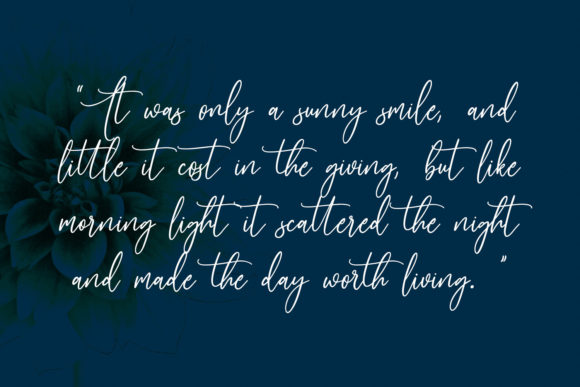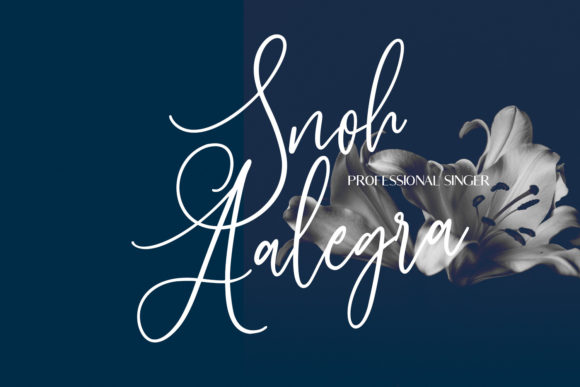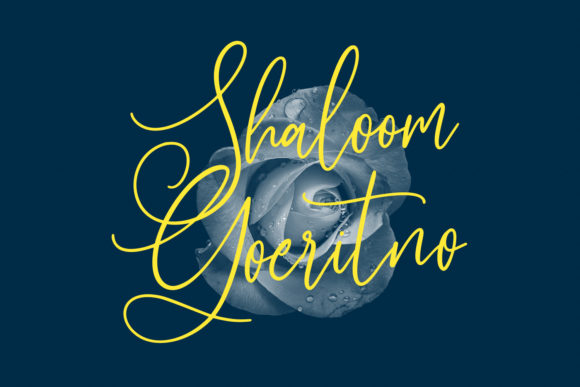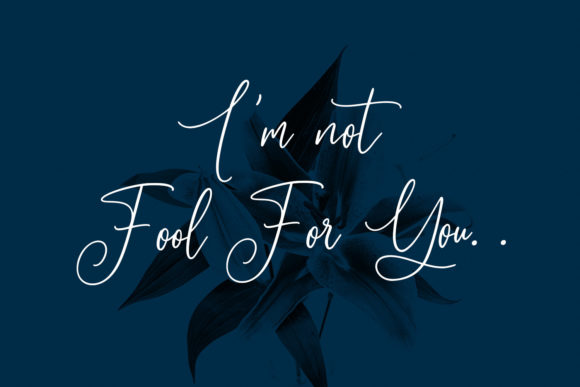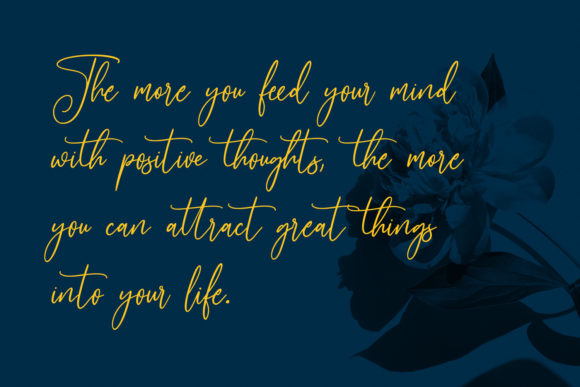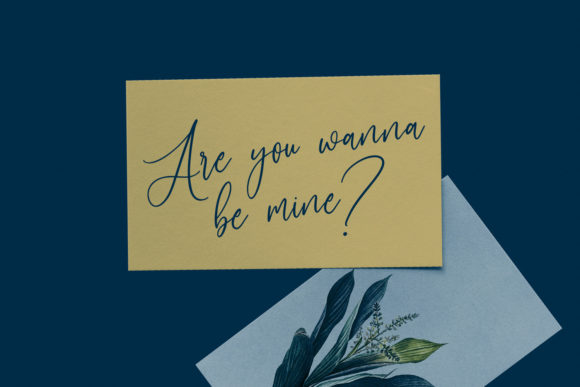
Introduction to Sallowbliss Font
Sallowbliss is a lovely and timeless handwritten font.
Key Features of Sallowbliss Font
Why Choose Sallowbliss Font?
Sallowbliss Font offers exceptional quality and versatility, making it a valuable addition to your design toolkit. Whether you’re creating for personal projects or commercial use, Sallowbliss Font delivers professional results.